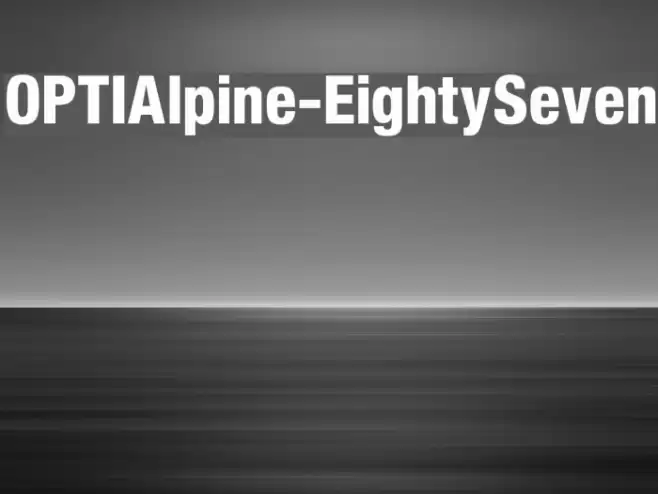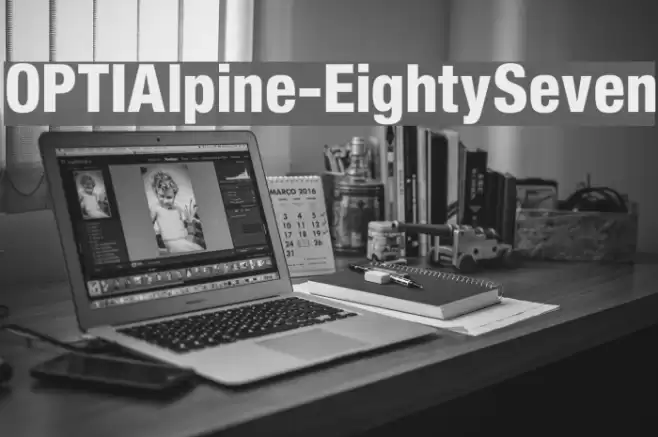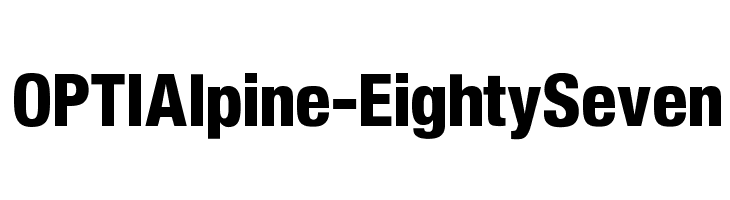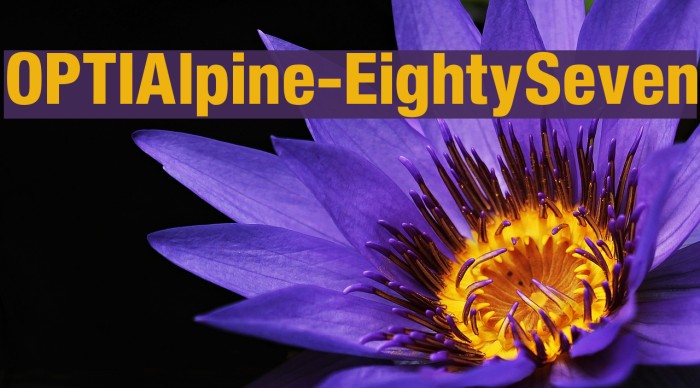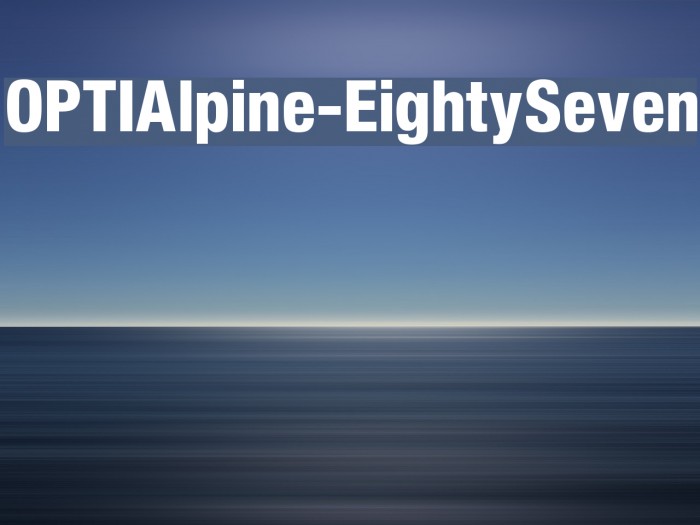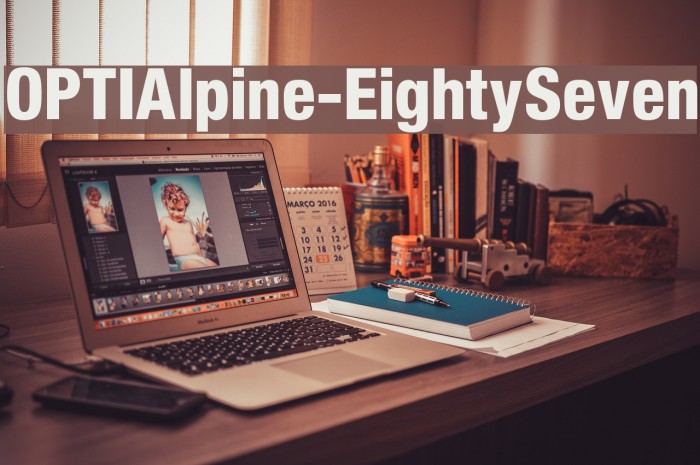
OPTIAlpine-EightySeven Font
OPTIAlpine-EightySeven Description
This font features a bold and impactful design with strong, clean lines and a modern aesthetic. The uppercase and lowercase letters are well-proportioned, offering a sense of balance and readability. The numerals are distinct and clear, making them suitable for various applications. Special characters are included, maintaining the font's cohesive style. Its bold weight and normal width make it ideal for attention-grabbing headlines and logos, while the tight character spacing enhances its bold presence.
A bold, modern font with strong lines and tight spacing, perfect for impactful designs from Uncategorized fonts.
- Proposed Projects: Ideal for branding, advertising, posters, and any project requiring a strong visual impact.
- Character Spacing: Tight